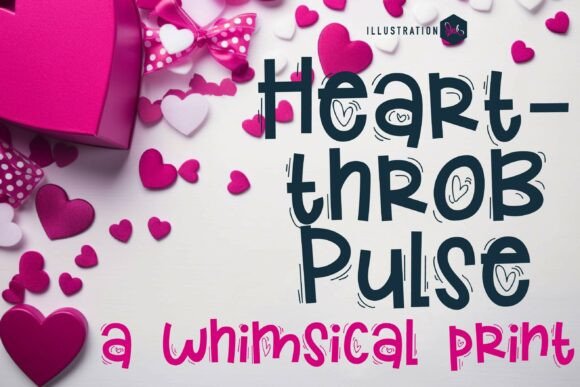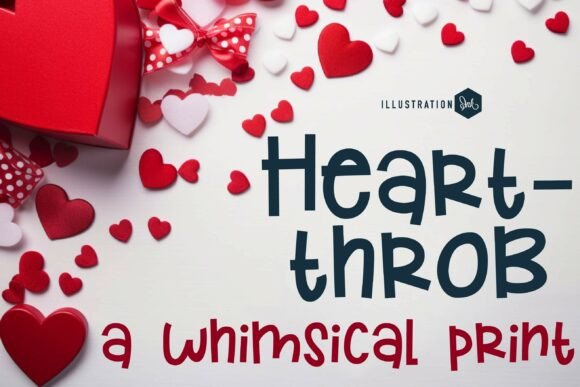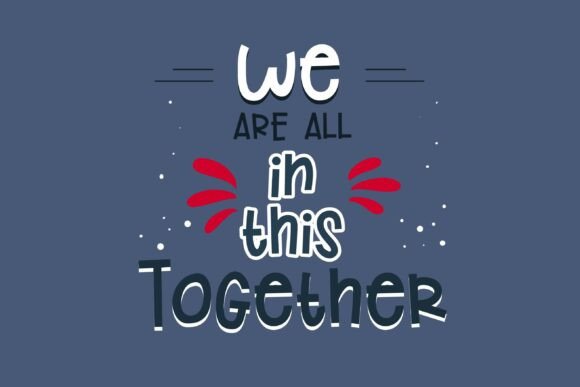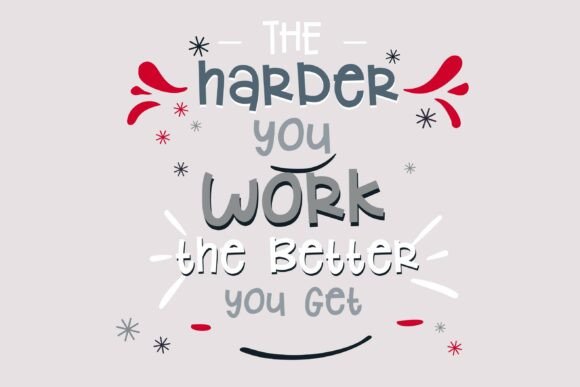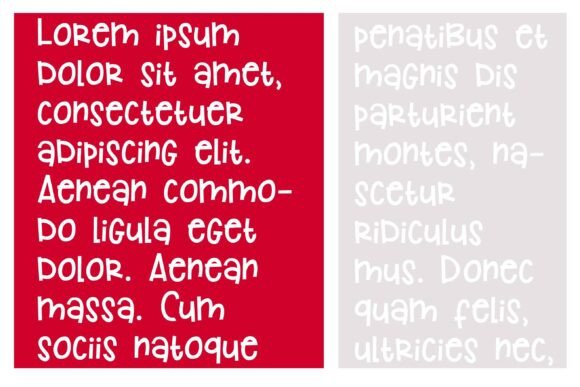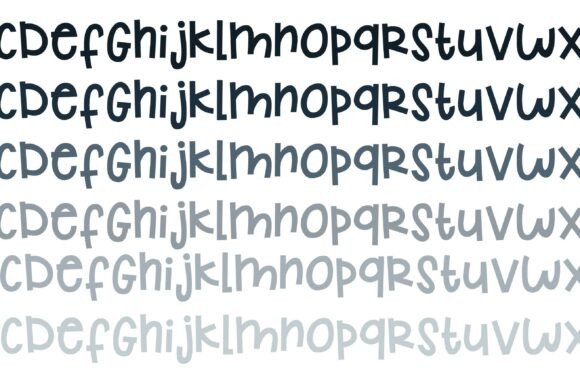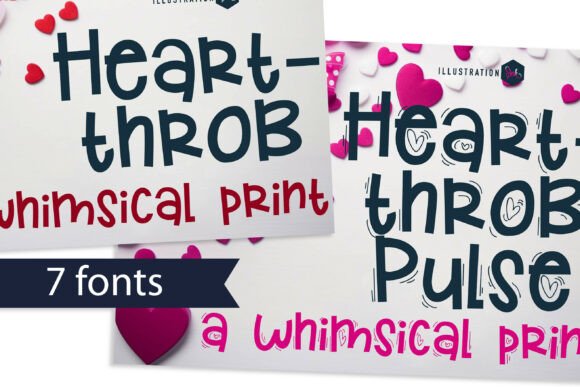
Heart Throb Font: The Ultimate Whimsical Display Font for Designers and Crafters
Are you looking for a font that captures the excitement of a crush and adds a touch of whimsy to your designs? Look no further than the Heart Throb font, a hand-crafted decorative display font that’s sure to get your pulse racing. With its dynamic and energetic vibe, this font is perfect for music posters, teen-oriented branding, vibrant stationery, and high-tempo advertising.
A Whimsical Font with a Personal Touch
The Heart Throb font is a unique and playful font that’s been carefully crafted to bring a touch of personality to your designs. With 7 variations to choose from, you can select the perfect style to suit your project. The font features some family members sporting hearts and throbs, giving it a fun and lighthearted feel that’s sure to appeal to designers and crafters alike.
The Pulse Variant: Adding Motion and Energy to Your Designs
One of the standout features of the Heart Throb font is the “Pulse” variant, which features motion lines and interior hearts. This gives your text a vibrating, high-energy look that’s perfect for designs that need to feel alive and “thumping.” Whether you’re creating a music poster or a digital sticker, the Pulse variant is sure to grab attention and add a dynamic touch to your design.
The Heart Throb font is an exceptional choice for designers and crafters who want to add a youthful edge to their layouts. The irregular, hand-drawn weight of the font gives it an authentic, organic feel that’s perfect for designs that need to feel fresh and vibrant. Whether you’re creating digital stickers, high-tempo advertising, or teen-oriented branding, the Heart Throb font is sure to deliver.
Key Features of the Heart Throb Font
• Hand-crafted decorative display font with a whimsical feel
• 7 variations to choose from, including the Pulse variant
• Perfect for music posters, teen-oriented branding, vibrant stationery, and high-tempo advertising
• Irregular, hand-drawn weight for an authentic, youthful edge
• Dynamic and energetic vibe that’s sure to grab attention
Tips for Using the Heart Throb Font
Here are a few tips for getting the most out of the Heart Throb font:
• Use the Pulse variant to add motion and energy to your designs
• Experiment with different colors and textures to add depth and interest
• Pair the Heart Throb font with other fonts to create a unique and eye-catching combination
• Use the font to add a touch of whimsy and personality to your designs
In conclusion, the Heart Throb font is a unique and versatile font that’s perfect for designers and crafters who want to add a touch of whimsy and personality to their designs. With its dynamic and energetic vibe, 7 variations to choose from, and irregular, hand-drawn weight, this font is sure to deliver. Whether you’re creating music posters, teen-oriented branding, vibrant stationery, or high-tempo advertising, the Heart Throb font is an exceptional choice.